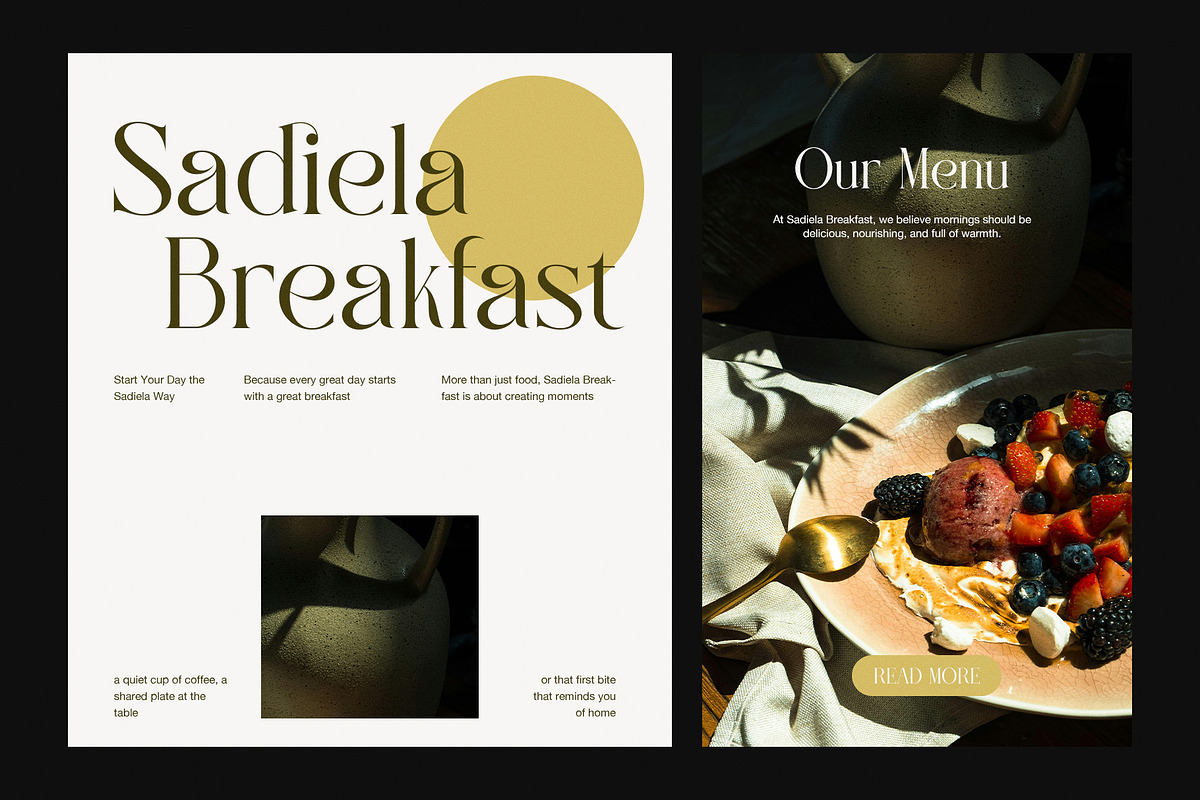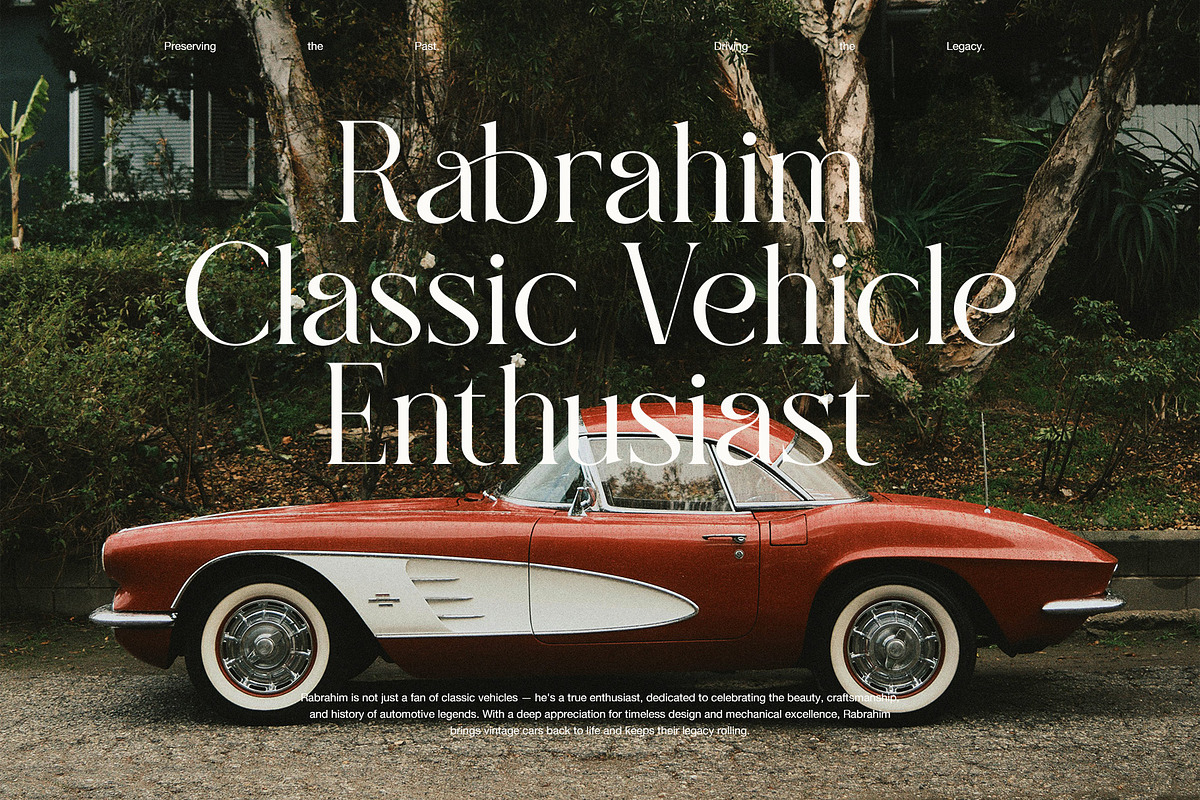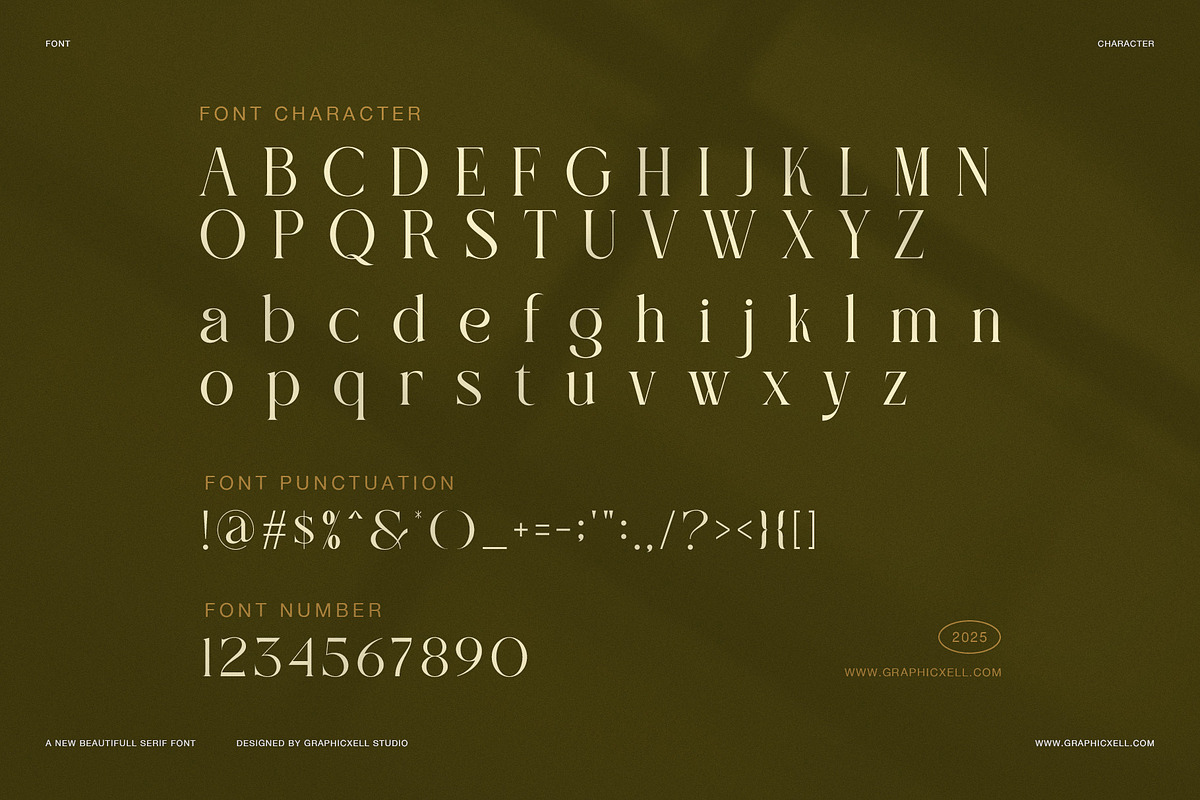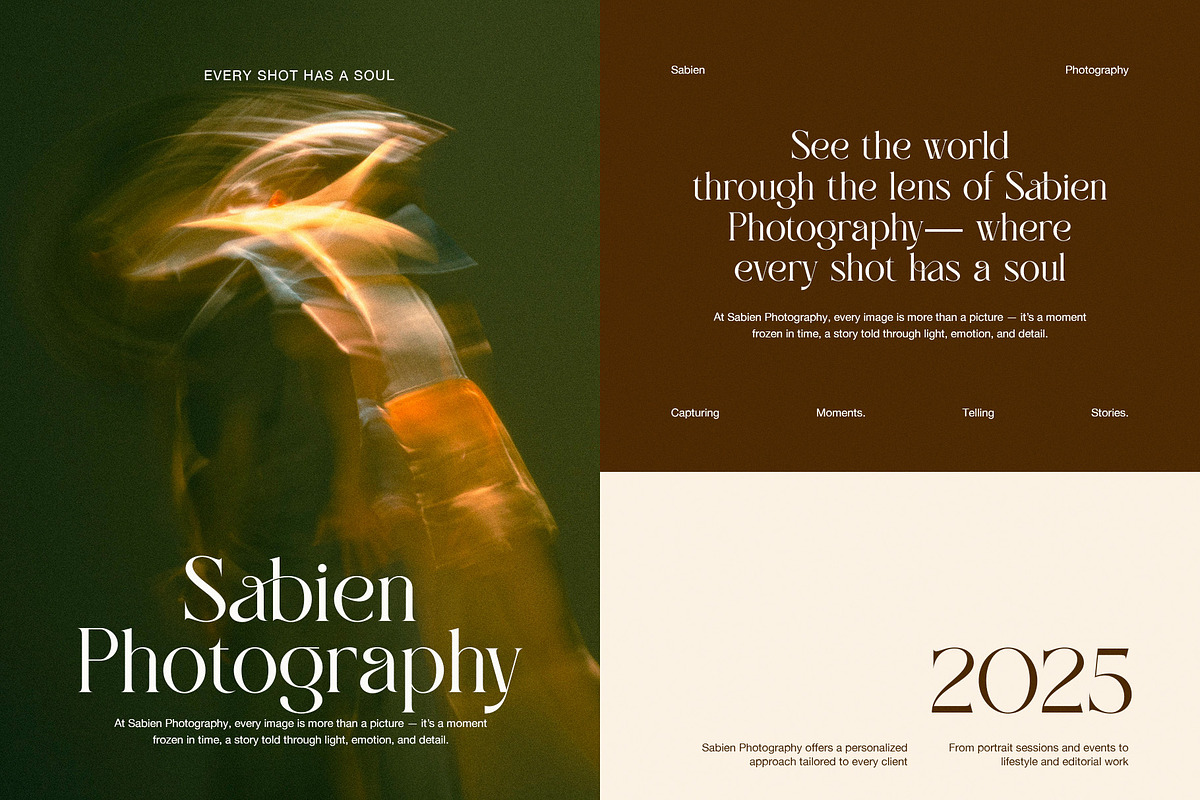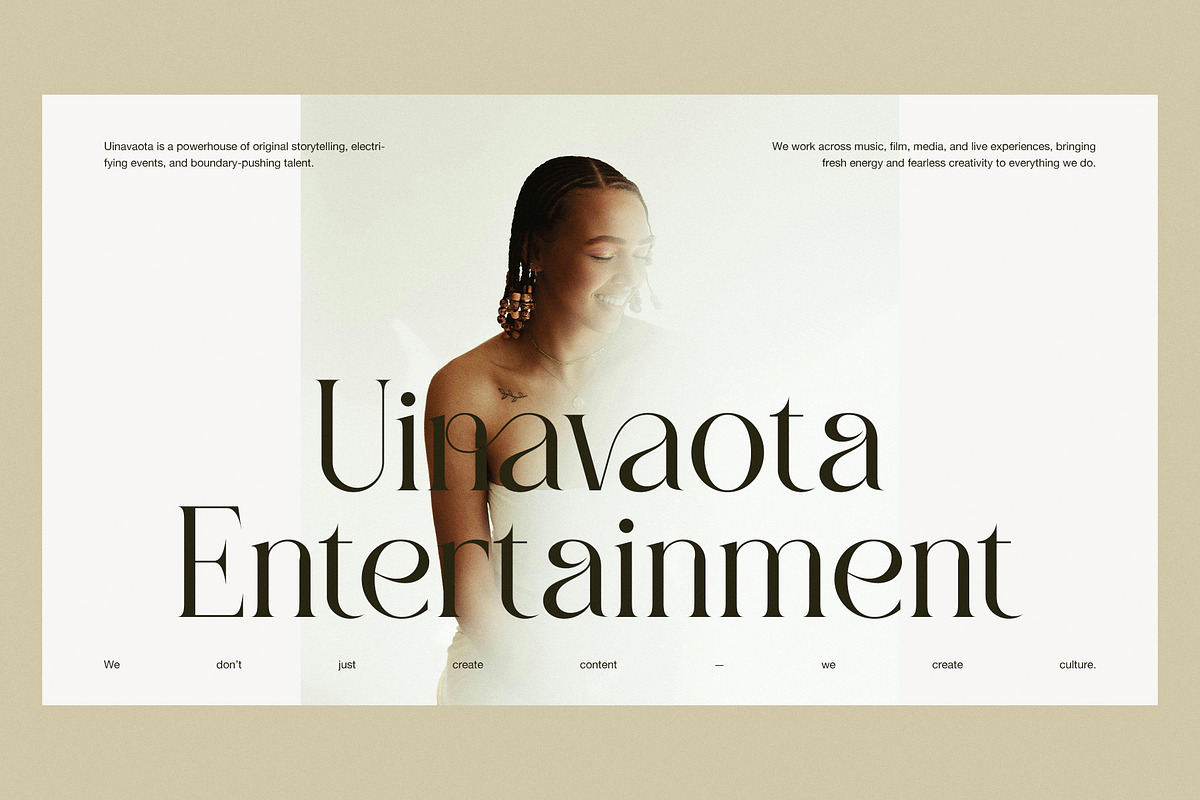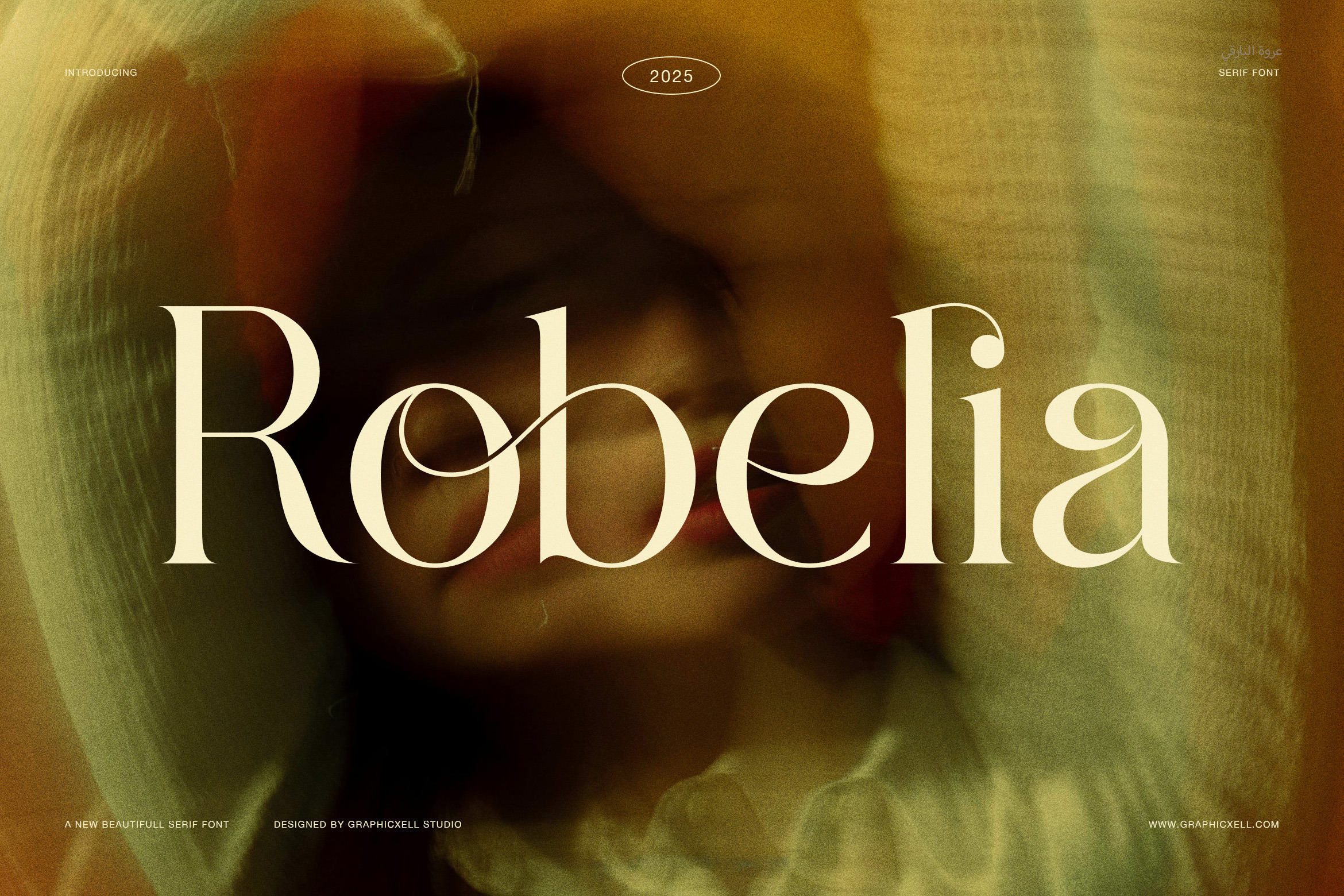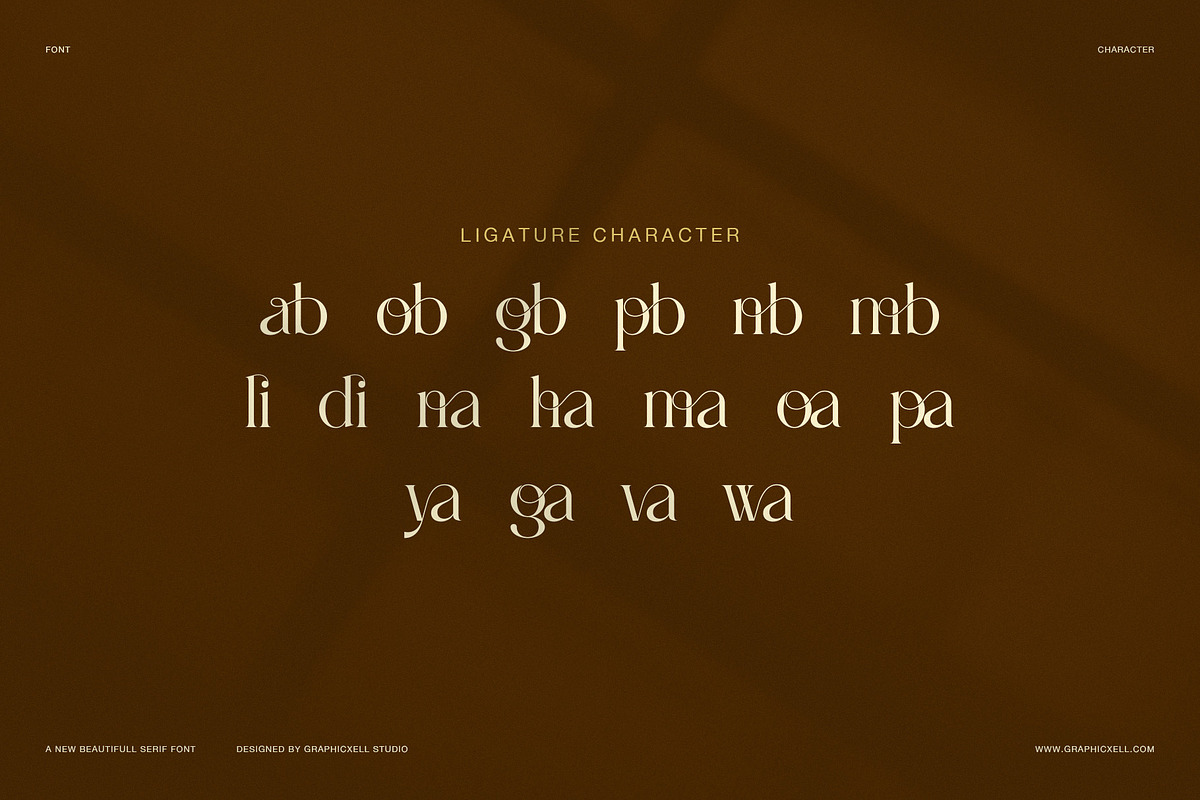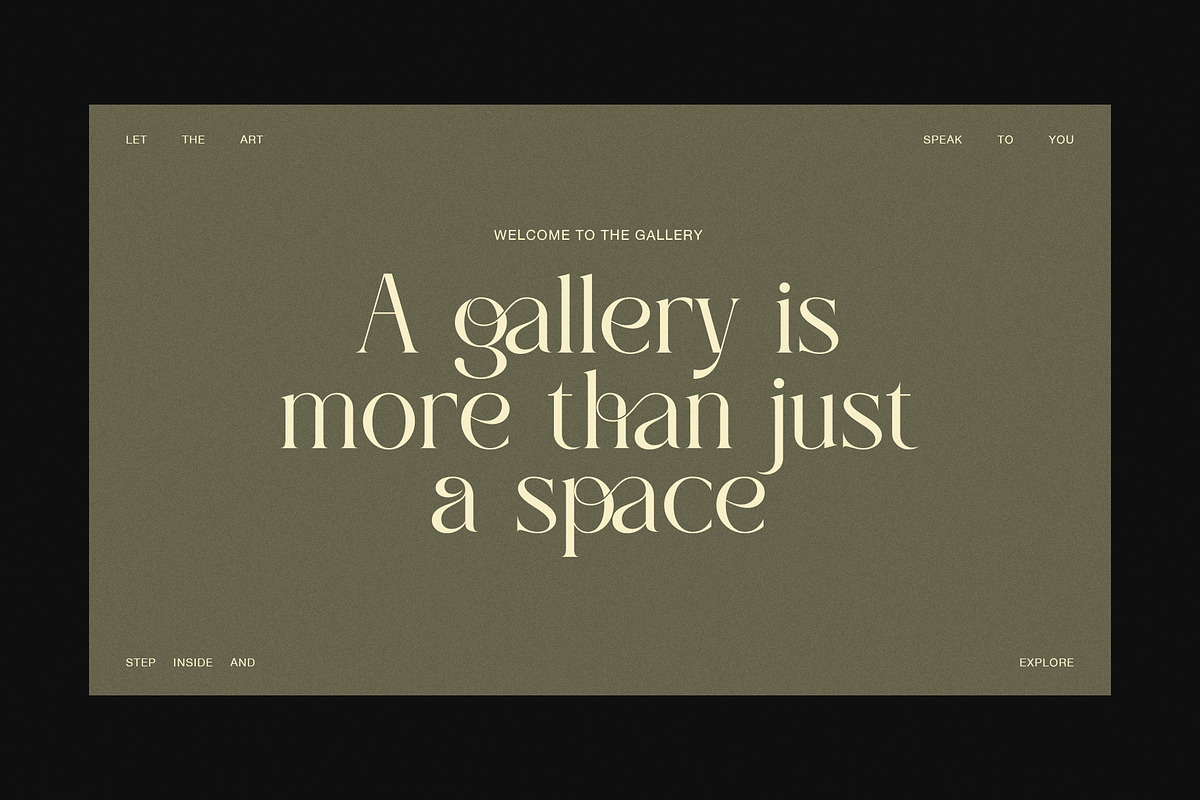
Robelia Elegant Serif Font
The Robelia Elegant Serif Font presents a graceful blend of classic serif tradition and sleek modern design. It offers strong visual presence yet stays readable across print and digital settings. Because of its refined letterforms and balanced contrast, this typeface works beautifully for branding, editorial layouts, and web headlines.
In addition, Robelia draws attention with its sharp serifs and smooth curves. The uppercase characters display strength, while the lowercase forms keep clarity. Consequently, the font adapts well for logos, packaging, premium invitations, and editorial covers. The design also includes optional alternates and ligatures so you can add bespoke details to your typography.
Furthermore, Robelia supports multilingual text usage, enabling creators to design for global markets confidently. Whether you are producing a high-end fashion magazine, a luxury product label, or a boutique identity system, this font delivers refined style. It also integrates seamlessly into digital workflows and print production thanks to its clean outlines and carefully considered spacing.
Here is a breakdown of key features:
Elegant serif design with modern proportions
High-contrast strokes paired with subtle curves
Alternates and ligatures included for creative variation
Full multilingual support for Latin-based languages
Designed for both screen and print use
Because this typeface merges elegance with functionality, it stands out in demanding creative projects. For example, when you pair Robelia with a minimalist sans serif for body text, you get a design that feels balanced yet luxurious. Moreover, the typeface truly shines in use cases like premium branding, magazine headings, event signage, and upscale social-media bursts.